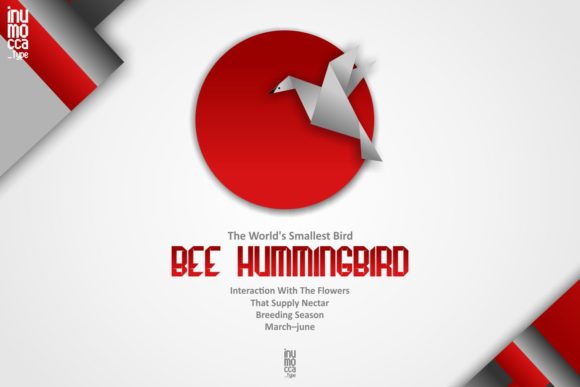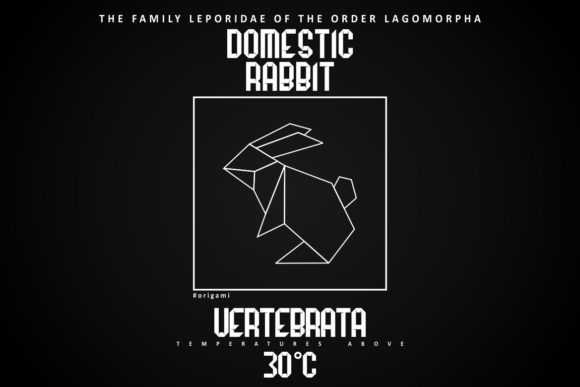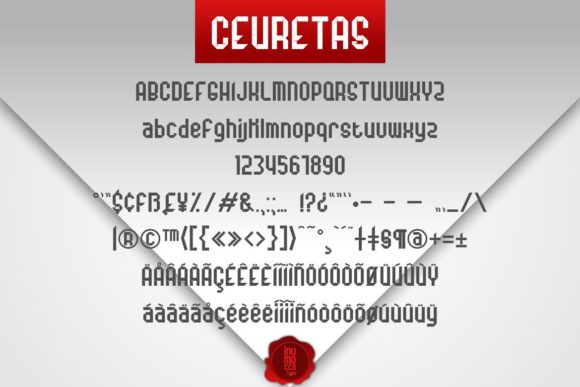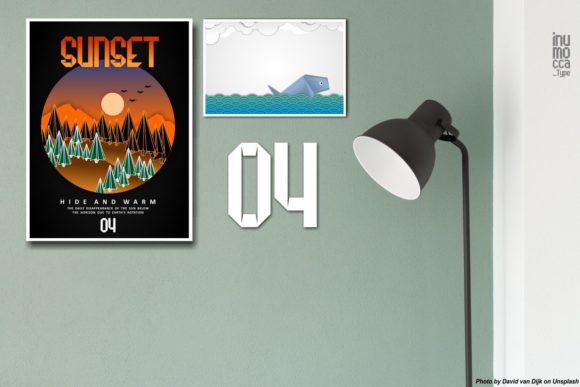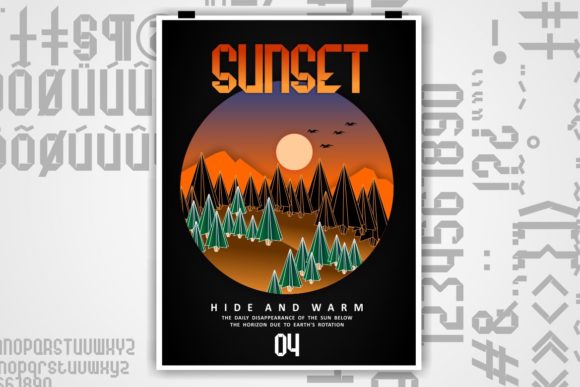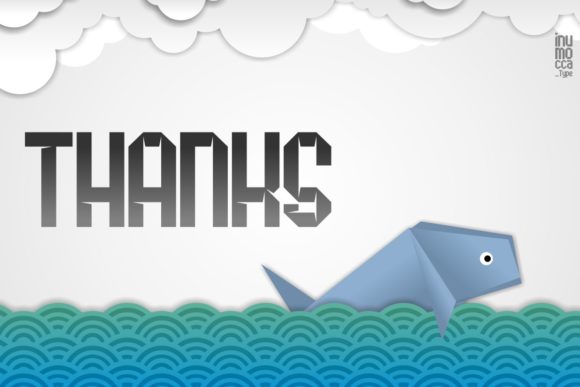
Discover the Power of Ceuretas Font
You know that feeling when you’re brainstorming a new project and a single element sparks an entire idea? For designers, it’s often the perfect font that sets the tone for a masterpiece. And that’s exactly what Ceuretas Font is designed to do – elevate your creations and make them truly unforgettable.
This bold and thick lettered display font is more than just a stylish addition to your library; it’s a game-changer. Whether you’re working on a magazine cover, a poster, or a social media campaign, Ceuretas Font has the potential to make your content stand out in a crowded digital space. As a valuable asset for designers, Ceuretas Font offers endless possibilities for creative expression and visual impact.
Ceuretas Font Key Features
- Font Family: Ceuretas is a sans-serif font family.
- Size: The font family includes various weights, ranging from Thin (100) to Black (900).
- Unique Characteristics: Ceuretas Font features a unique blend of modern and geometric elements, making it suitable for a wide range of applications.
- Resolution: Ceuretas Font is designed to be scalable, ensuring high-quality rendering at various resolutions, including print and digital formats.
- Support: Ceuretas Font supports a wide range of languages, including Latin, Cyrillic, and Greek alphabets.
Design Review: Ceuretas Font
I recently had the chance to work with Ceuretas Font, and I must say it was an interesting experience. Here’s my honest review.
- ✨ Unique blend of elegance and modernity: Ceuretas Font has a distinct personality that sets it apart from other fonts. Its mix of classic and contemporary elements makes it perfect for projects that require a touch of sophistication.
- ✨ Wide range of applications: This font is suitable for a variety of purposes, including logos, headings, body text, and even digital displays.
- ✨ Good legibility: Ceuretas Font is easy to read, even at smaller sizes, making it a great choice for publications and websites.
- ⚠️ Limited character set: Ceuretas Font has a limited character set, which may cause issues when working with non-English languages.
- ⚠️ May not be suitable for very small sizes: While Ceuretas Font is legible, it may not be the best choice for extremely small text sizes, as it can become difficult to read.
Overall, Ceuretas Font is a solid choice for designers looking for a unique and elegant font. While it has some limitations, its strengths make it a great option for a wide range of projects. Just be aware of its limitations and use it accordingly.
Tip: Use Ceuretas Font to add a touch of elegance to your designs, especially for headings and titles.
Tip: Use Ceuretas Font to create custom typography for your branding or design projects.
Tip: Use Ceuretas Font to add a professional touch to your presentations and documents.
Ceuretas Font is ideal for:
- Brand identity and logos
- Editorial and publishing designs
- Business cards and stationery
By following these guidelines, you can effectively use Ceuretas Font in various design applications and create stunning visuals.
Compared to Ceuretas Font, Oswald is more geometric and has a more uniform feel. While Ceuretas Font has a more elegant and refined look, Oswald is more straightforward and easy to read.
Lato is a sans-serif font that is highly versatile and works well for body text and headings. It has a modern feel and is great for digital media. Use Lato when you need a font that is both elegant and readable.